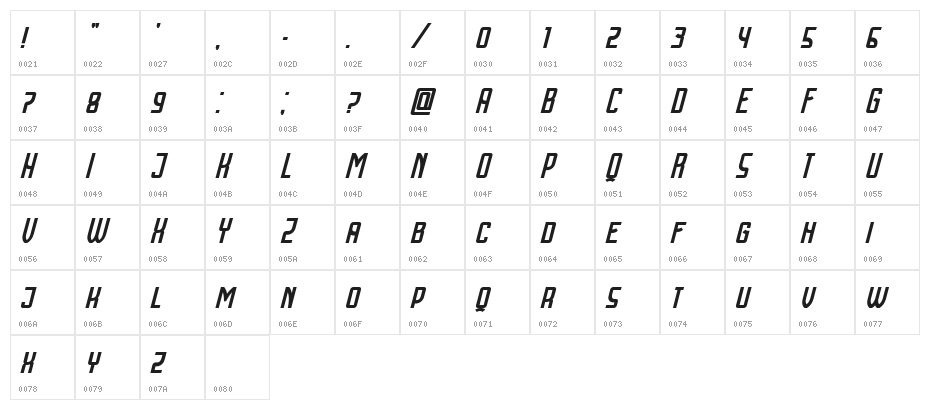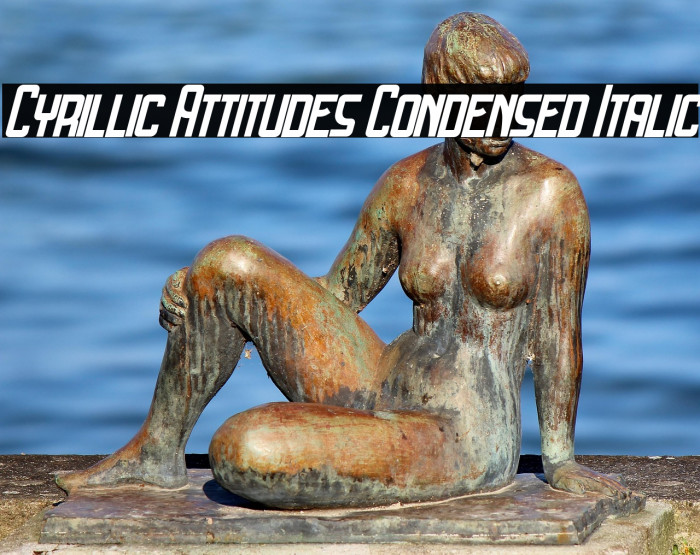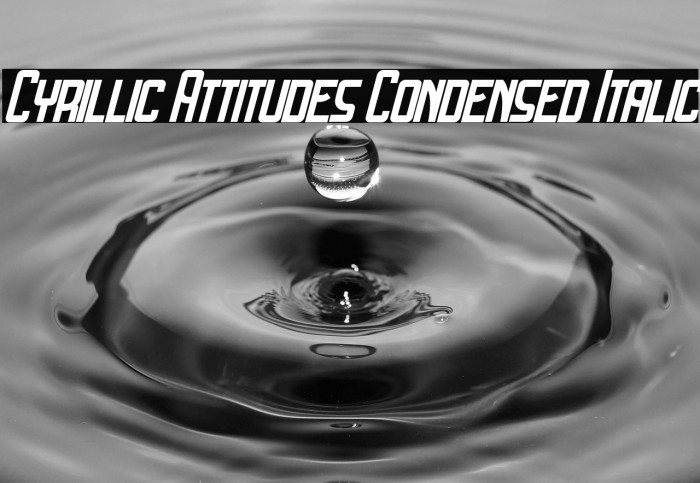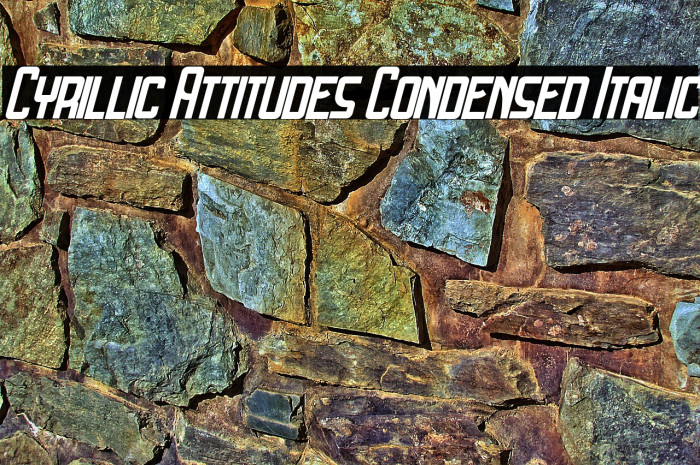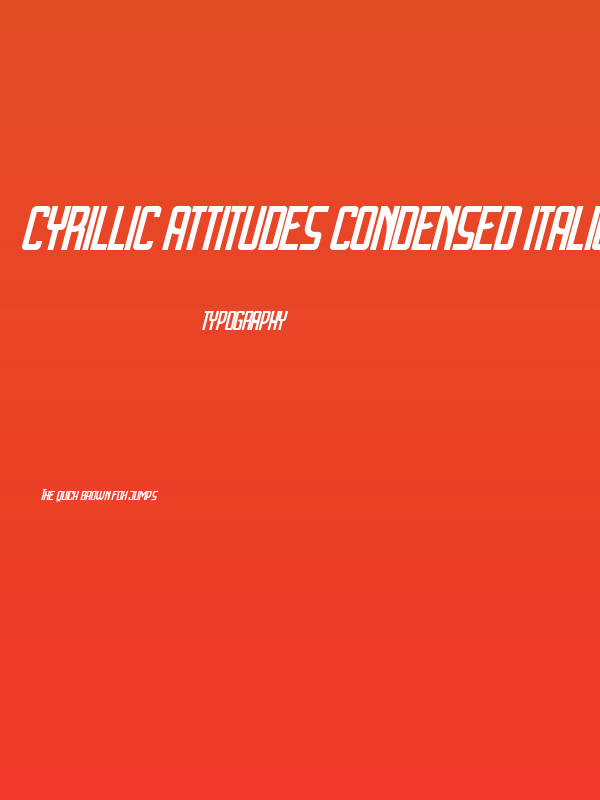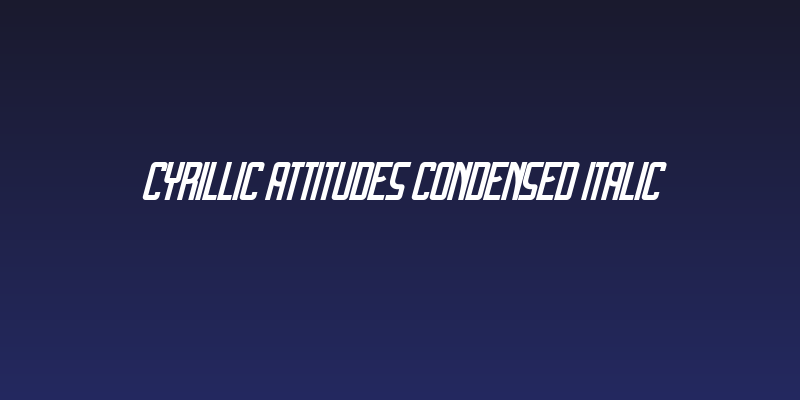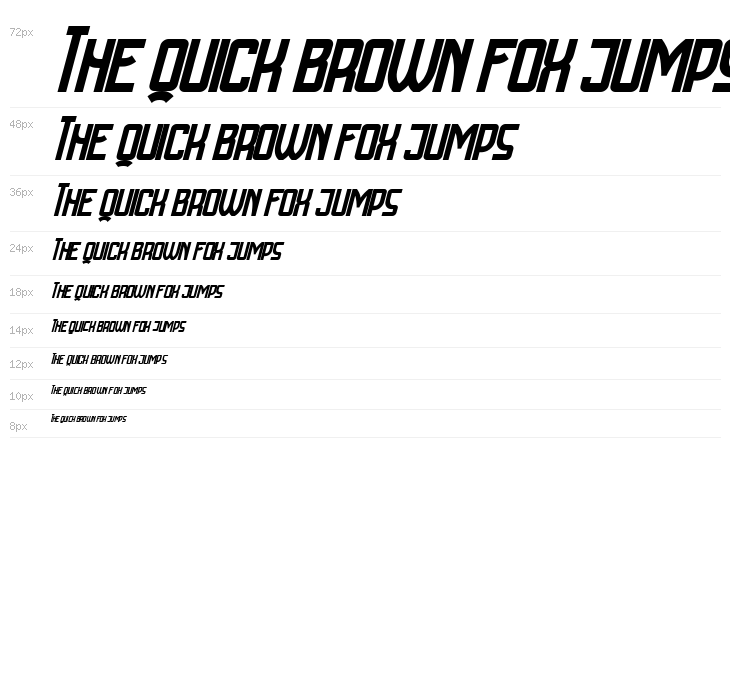
Cyrillic Attitudes Condensed Italic Font
Cyrillic Attitudes Condensed Italic Description
This font features a bold and dynamic style with a condensed and italicized form. The characters are sharply angled, giving them a sense of motion and energy. The uppercase letters are tall and narrow, with a consistent slant that adds to the italic effect. The numerals and special characters maintain this angular design, ensuring a cohesive look across all glyphs. The overall appearance is modern and assertive, making it suitable for attention-grabbing headlines or impactful branding.
| Proposed Projects | Ideal for sports branding, dynamic posters, modern advertising, and any project requiring a bold statement. |